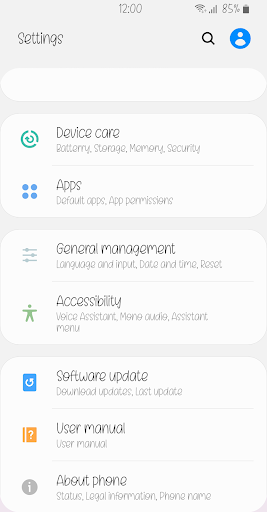
Nm SlowCats™ Latin Flipfont
Nm SlowCats
Nm SlowCats is a lovely and cute font and has good readability. Customize your phone with this. Please try this font and leave your feedback.